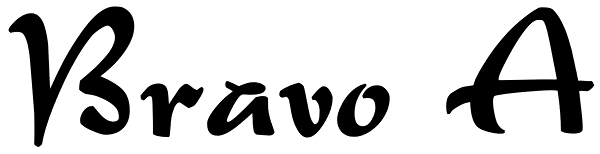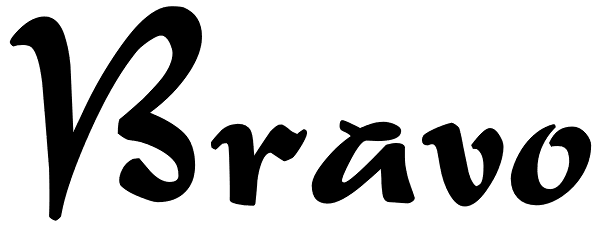
Bravo-AR
Bravo-AR is based upon a 16-pt type designed by E. A. Neukomm and released in 1945 by the Haas foundry of Münchenstein, Switzerland. in 1948.